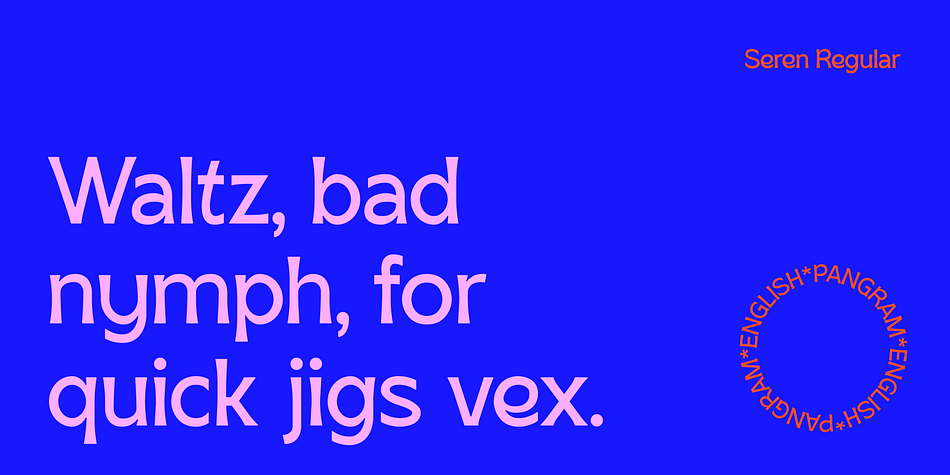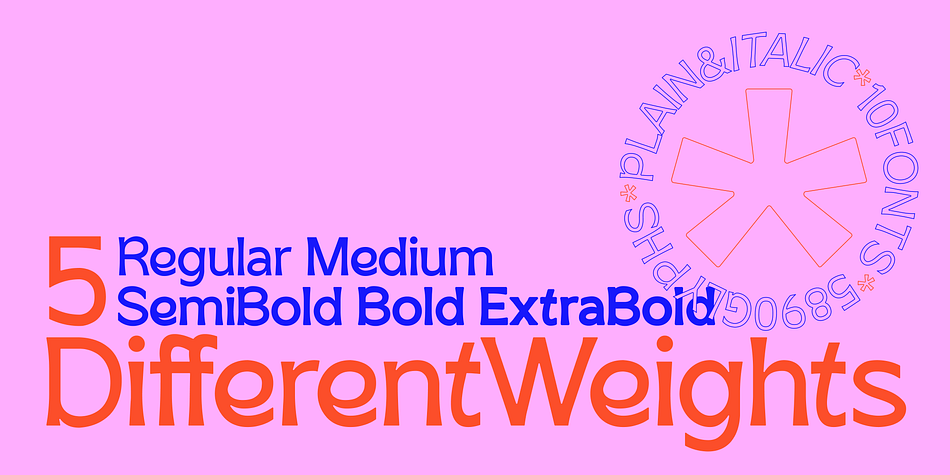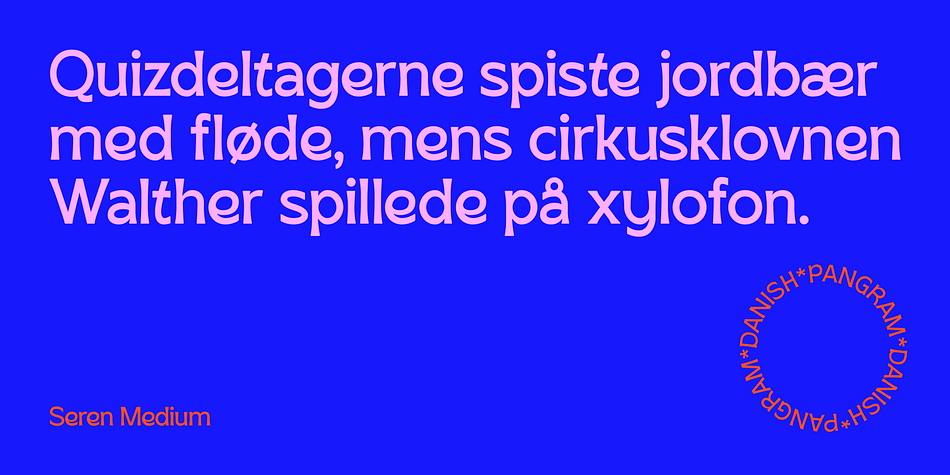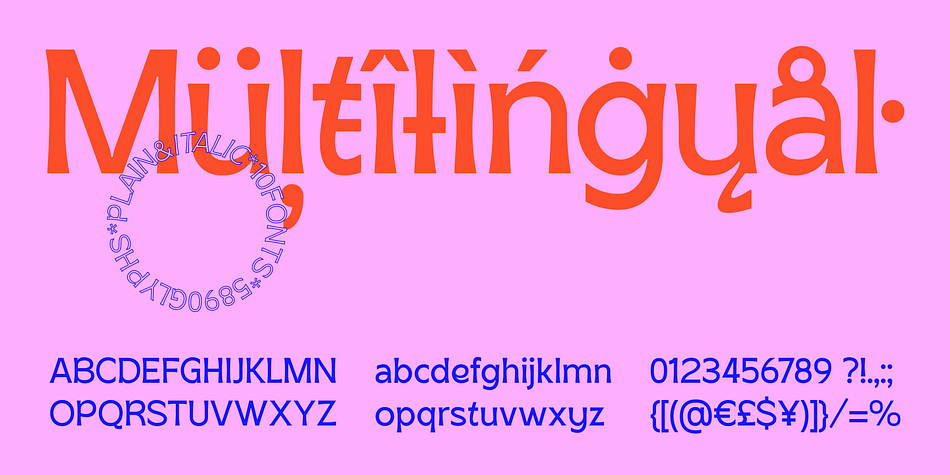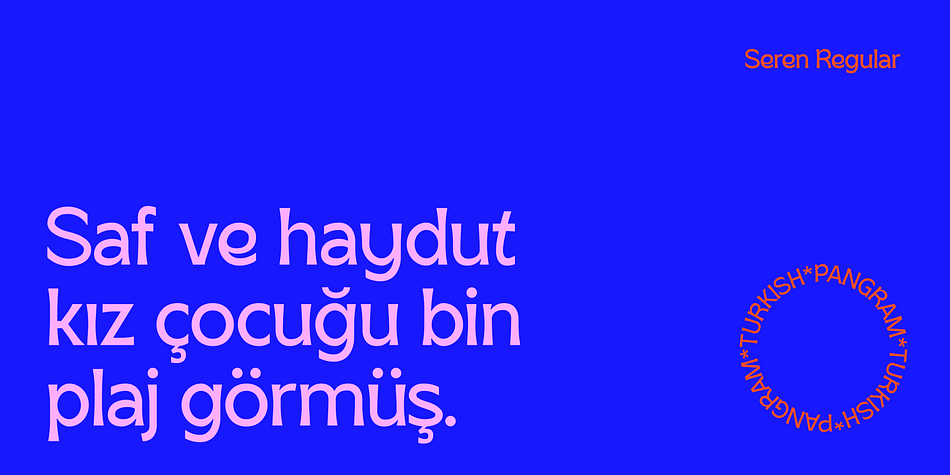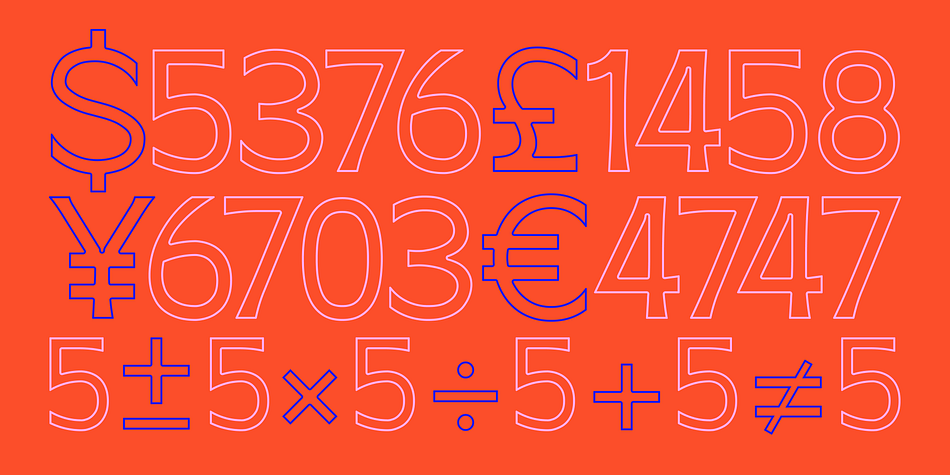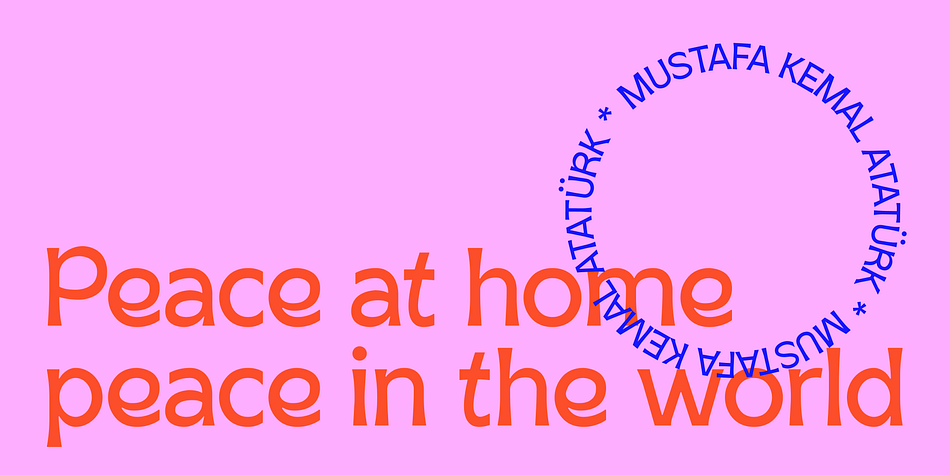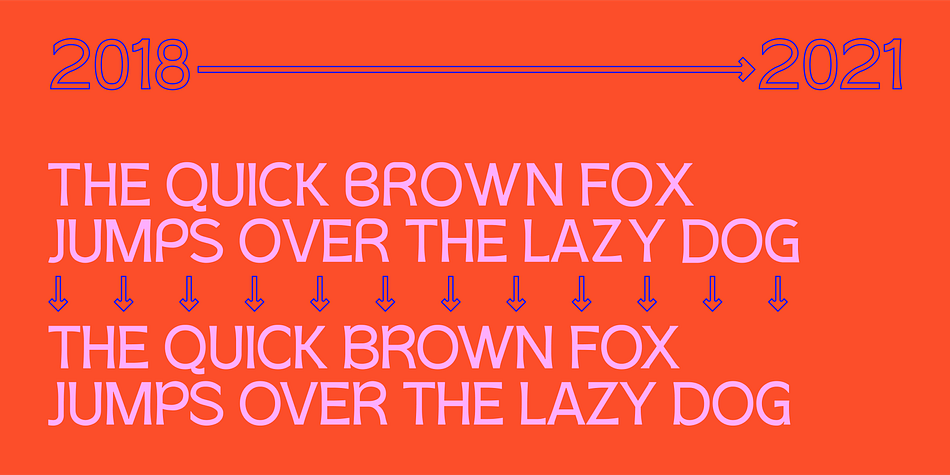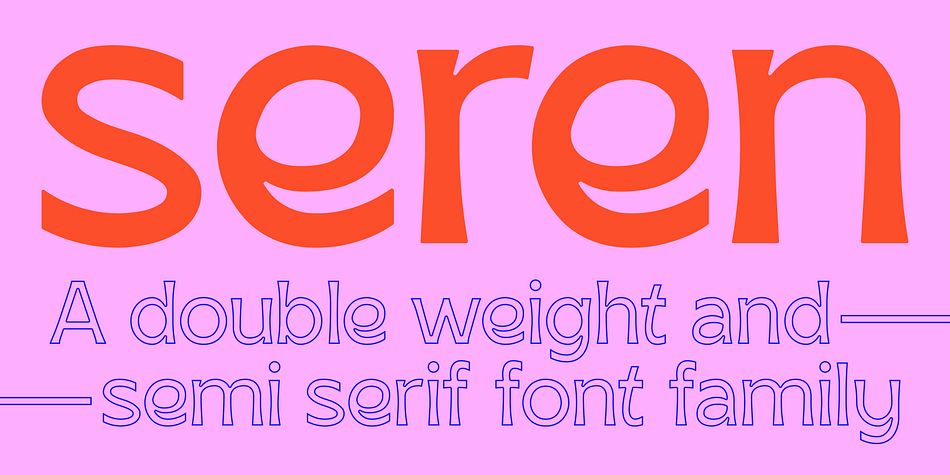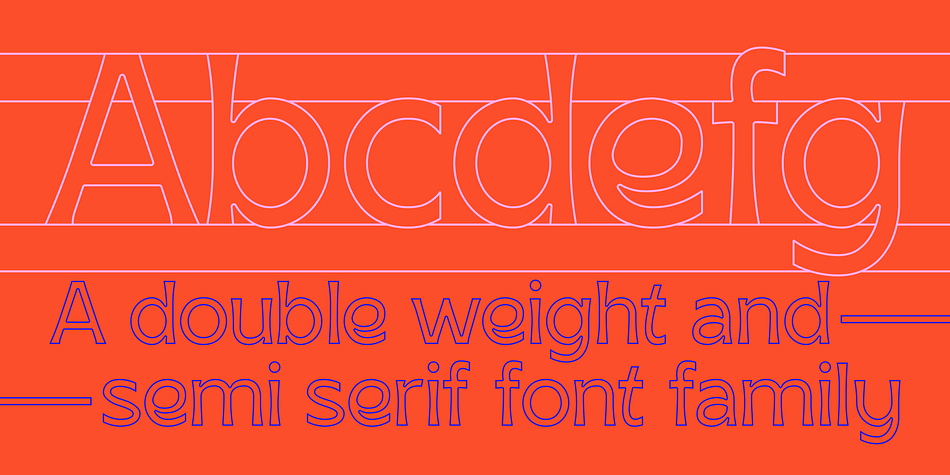
Designed by Salih Kizilkaya, SK Seren is a display, display sans and retro font family. This typeface has ten styles and was published by Salih Kizilkaya.
SK Seren is a clean, double weight and semi-serif font family. This font family, which you can use in long texts or headlines, logos and posters you will design without hesitation, manages to stand out even in the most crowded environments.
As you can easily use in print and web design, this is the only font you need in every medium. This family consists of 10 different fonts and 5890 glyphs. In this way, it contains all the typographic materials you will need in your design and offers full support to the Latin alphabet.
This font family is a new version of the first font I designed while studying college in 2018. This version includes many new glyphs that were not available in the first version, and all bugs found in the first version were fixed and kerning settings were reconfigured.